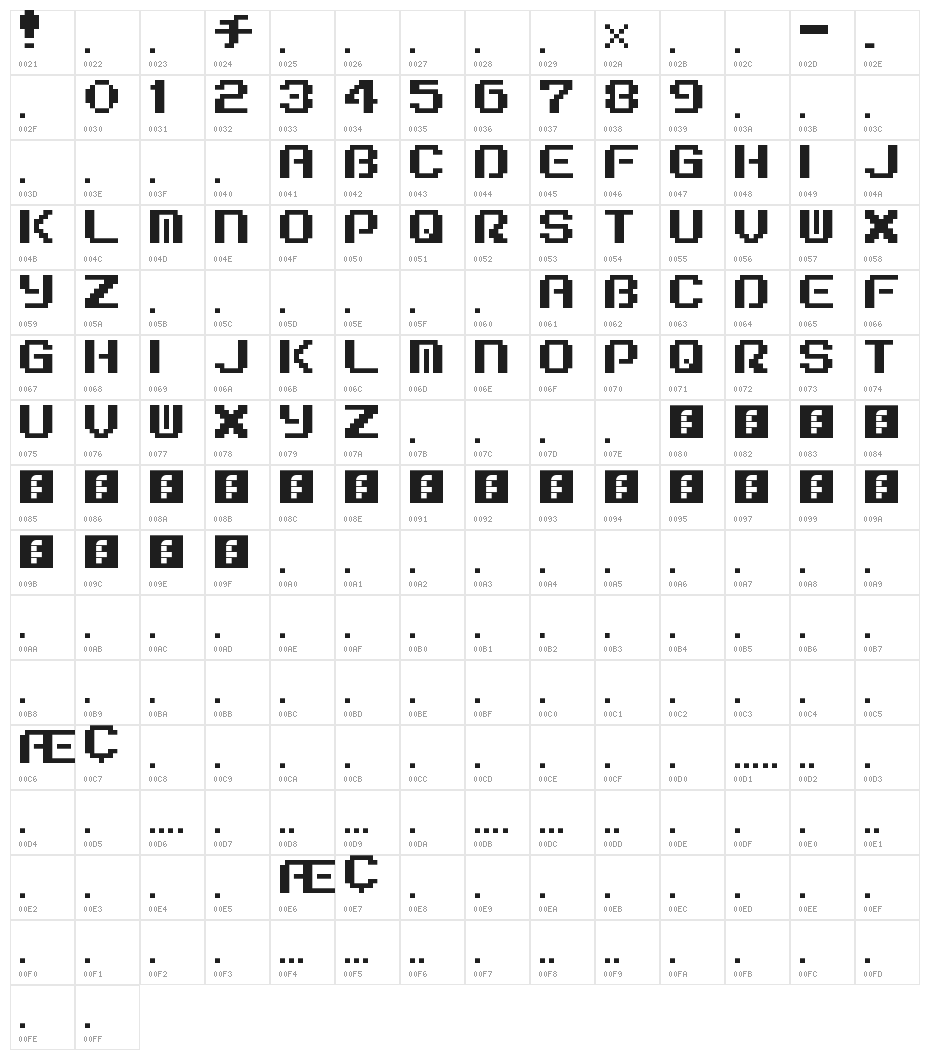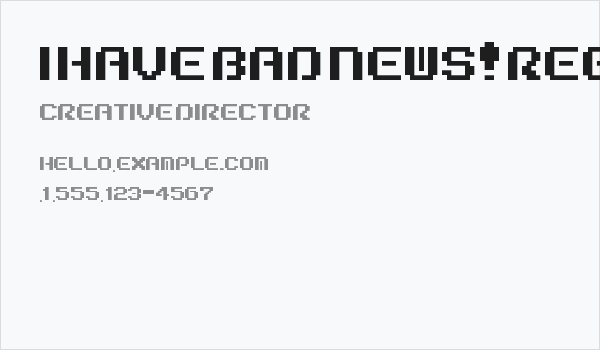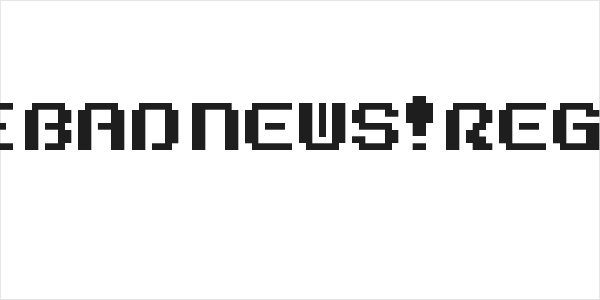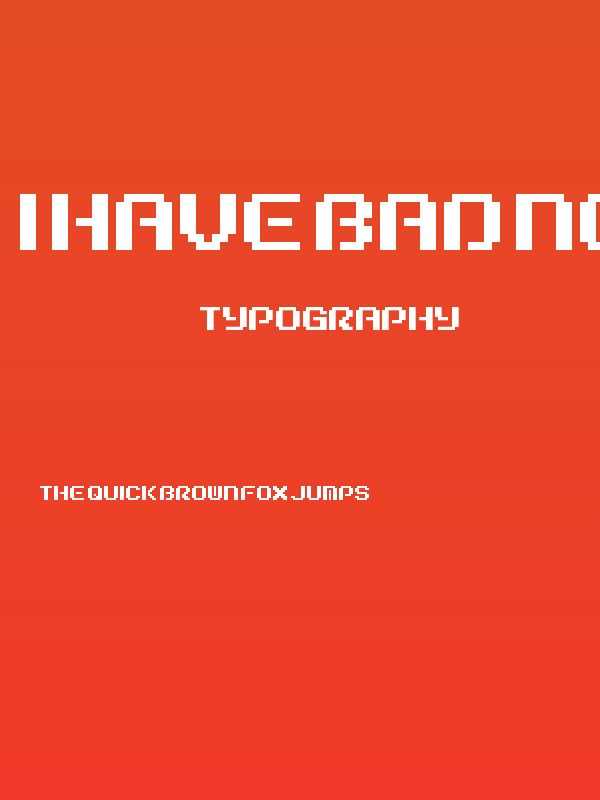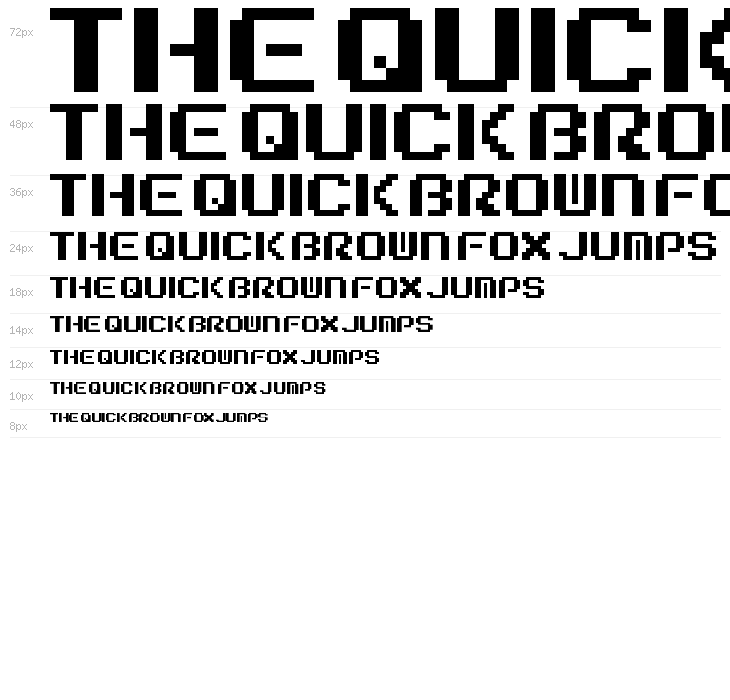
I Have Bad News! Regular Font
I Have Bad News! Regular Description
This font features a bold, pixelated style reminiscent of early digital or video game typography. The characters are blocky and geometric, with a uniform thickness that gives it a strong, impactful presence. The uppercase and lowercase letters share a similar structure, maintaining consistency across the typeface. Numbers and special characters are designed with the same pixelated aesthetic, ensuring a cohesive look throughout. The overall design is straightforward and functional, making it suitable for projects that require a retro or tech-inspired feel.
| Overall Style | Retro, Digital |
| Proposed Projects | Ideal for video game designs, tech-themed posters, retro digital interfaces, and any project seeking a nostalgic or digital look. |